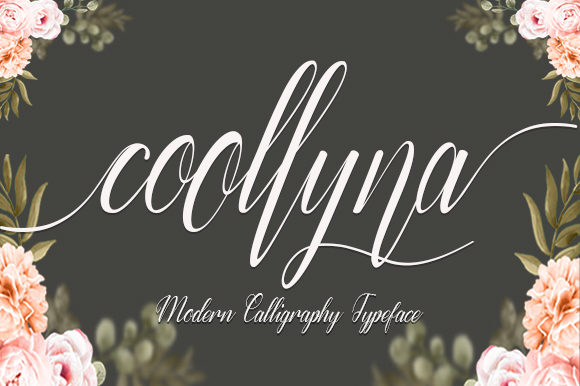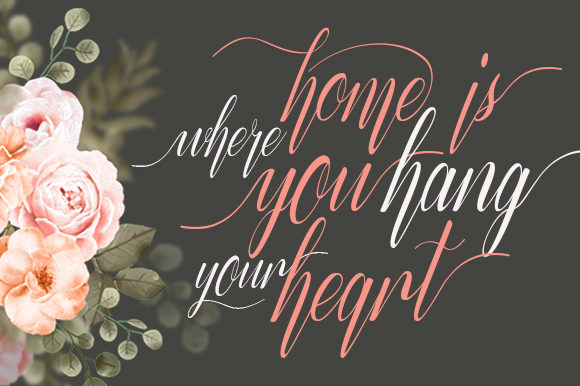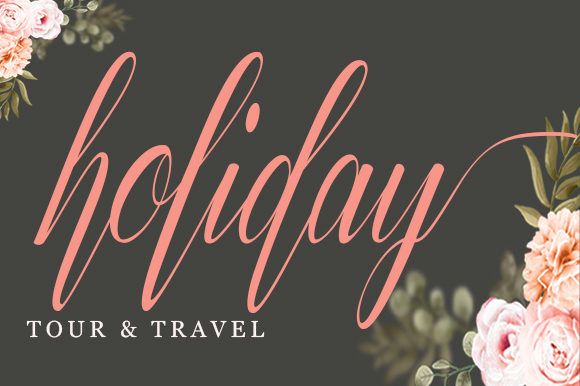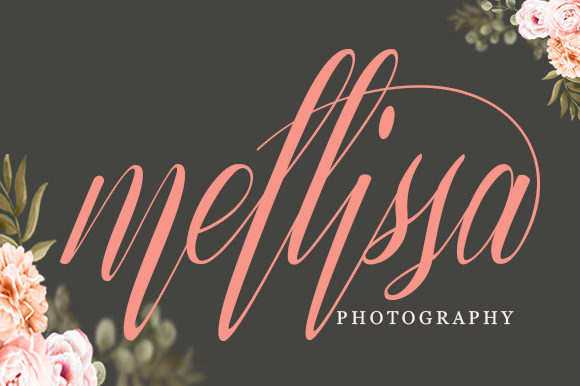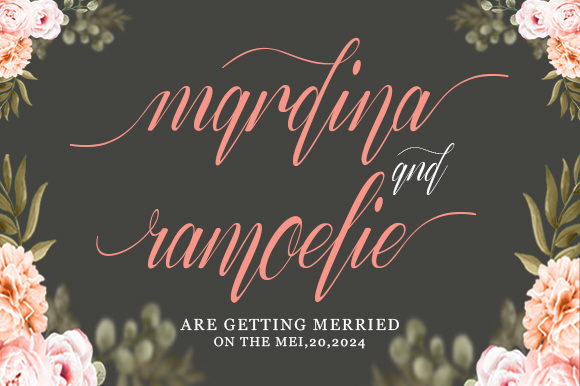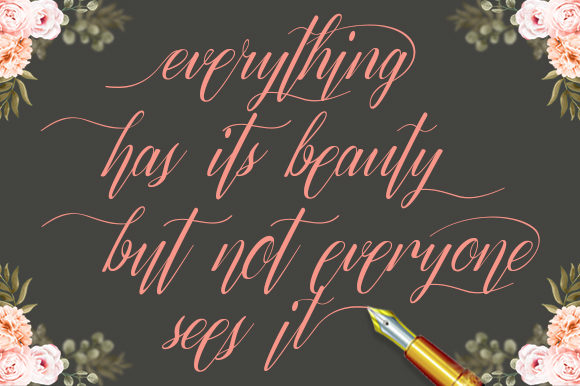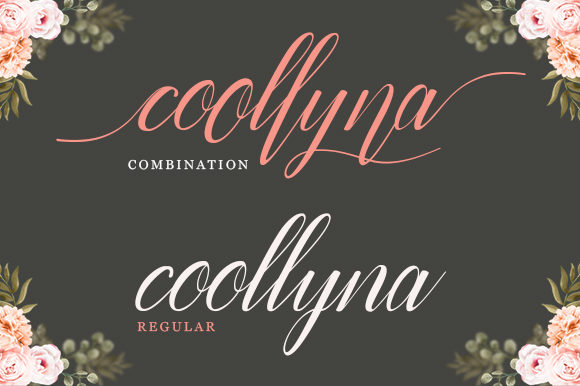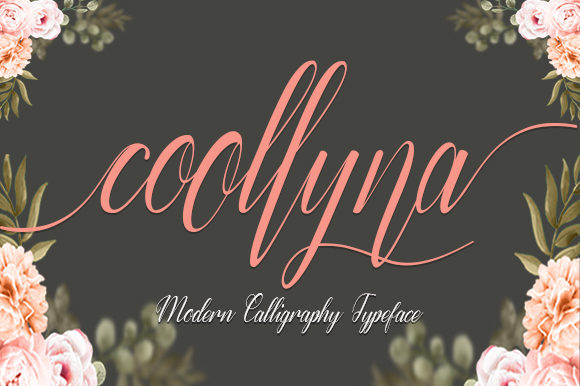
Coollyna Font
About Coollyna Font
Coollyna is a stunningly elegant and modern handwritten font with graceful swashes. It will add a sophisticated feel to any design!